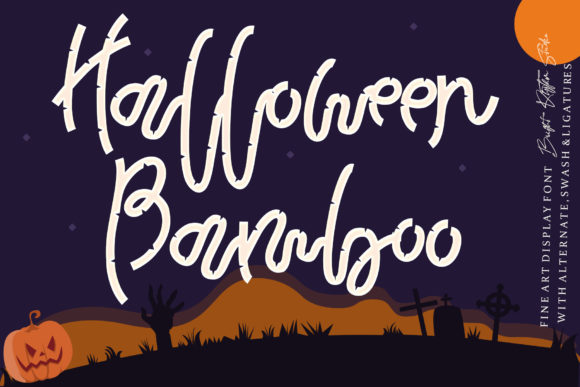
Introducing Halloween Bamboo Font: Add a Touch of Whimsy to Your Designs
Are you looking for a font that can add a dash of playfulness and charm to your designs? Look no further than the Halloween Bamboo Font! This lovely script font features characters that seem to dance along the baseline, making it perfect for a variety of creative projects. In this article, we’ll take a closer look at the Halloween Bamboo Font, its features, and how you can use it to take your designs to the next level.
What is Halloween Bamboo Font?
Halloween Bamboo Font is a beautiful script font that is sure to capture the attention of your audience. Its charming and playful characters are designed to add a touch of whimsy to your designs, making it perfect for projects that require a bit of personality. Whether you’re working on a Halloween-themed project or just want to add some flair to your designs, this font is sure to impress.
Key Features of Halloween Bamboo Font
So, what makes Halloween Bamboo Font so special? Here are just a few of its key features:
- Charming and Playful Characters: The Halloween Bamboo Font features characters that seem to dance along the baseline, giving your designs a playful and whimsical feel.
- Versatile: This font can be used for a variety of projects, including Halloween-themed designs, party invitations, and more.
How to Use Halloween Bamboo Font in Your Designs
Now that we’ve covered the features of the Halloween Bamboo Font, let’s talk about how you can use it in your designs. Here are a few ideas to get you started:
- Halloween-themed Designs: This font is perfect for Halloween-themed designs, such as party invitations, pumpkin carvings, and more.
- Party Invitations: Add a touch of whimsy to your party invitations with the Halloween Bamboo Font.
- Crafting Projects: This font is perfect for crafters who want to add a personal touch to their projects, such as handmade cards and gift tags.
- Social Media Graphics: Use the Halloween Bamboo Font to create eye-catching social media graphics that are sure to grab the attention of your followers.
Tips for Getting the Most Out of Halloween Bamboo Font
Here are a few tips for getting the most out of the Halloween Bamboo Font:
- Experiment with Different Sizes: Try out different font sizes to see how the Halloween Bamboo Font looks in different contexts.
- Pair it with Other Fonts: Experiment with pairing the Halloween Bamboo Font with other fonts to create a unique look.
- Use it for Headlines: The Halloween Bamboo Font is perfect for headlines and titles, so don’t be afraid to use it to add a touch of personality to your designs.
In conclusion, the Halloween Bamboo Font is a versatile and charming script font that is perfect for a variety of creative projects. Its playful characters and PUA encoding make it easy to use and customize, while its whimsical feel makes it perfect for Halloween-themed designs and more. Whether you’re a designer or crafter, this font is sure to add a touch of personality to your projects. So why wait? Download the Halloween Bamboo Font today and start creating!
- What is the Halloween Bamboo Font? The Halloween Bamboo Font is a script font featuring charming and playful characters that seem to dance along the baseline.
- What can I use the Halloween Bamboo Font for? You can use the Halloween Bamboo Font for a variety of projects, including Halloween-themed designs, party invitations, crafting projects, and more.